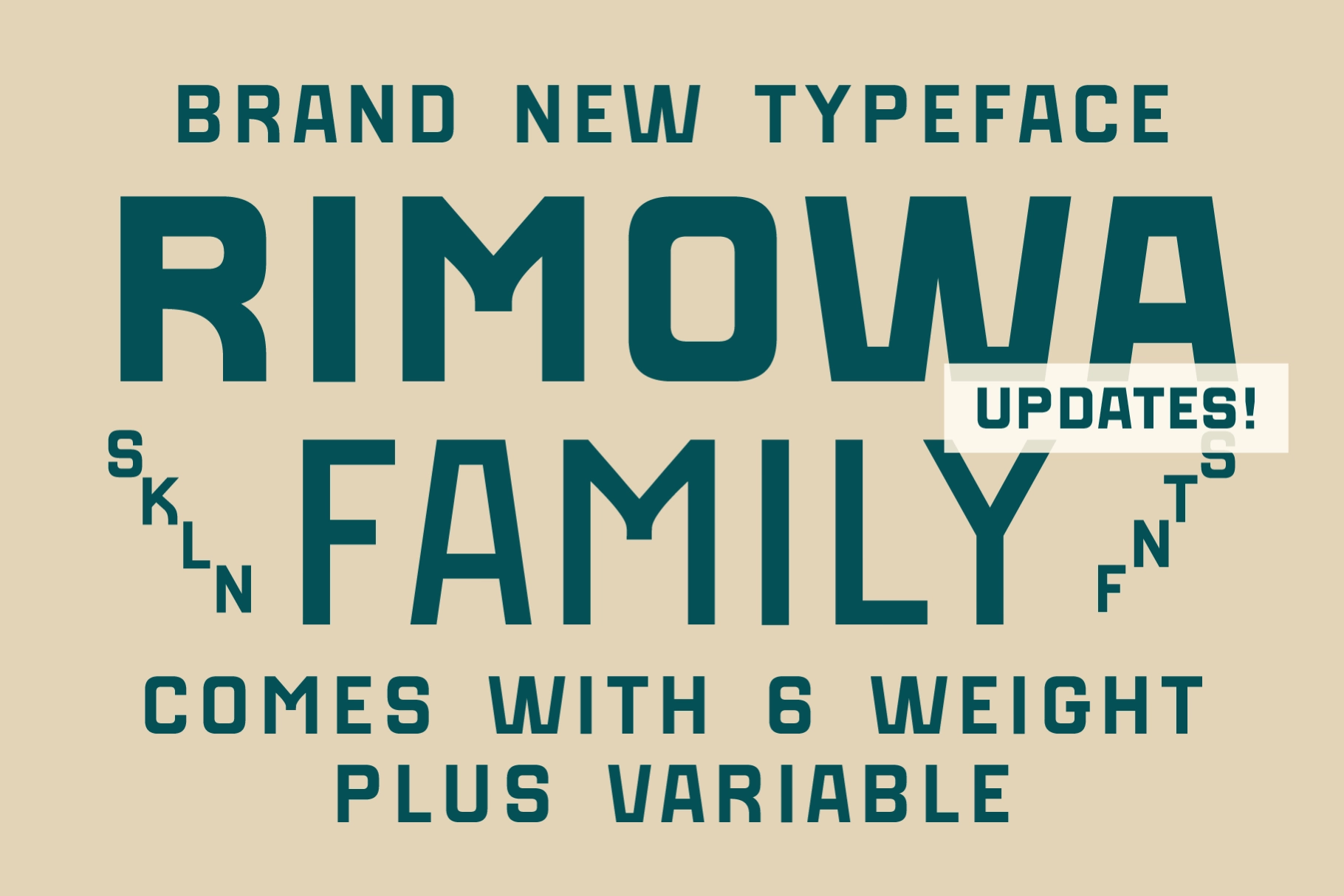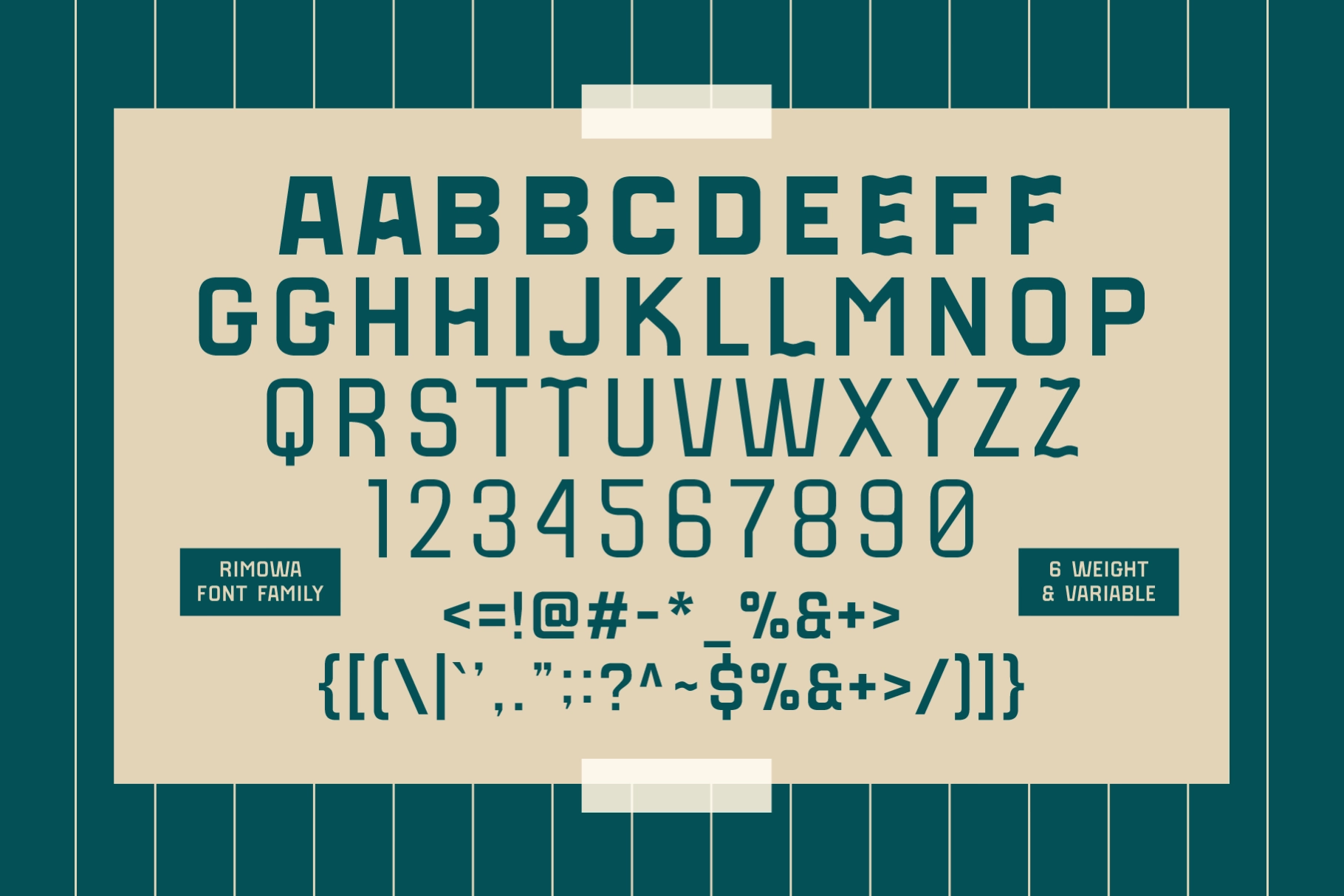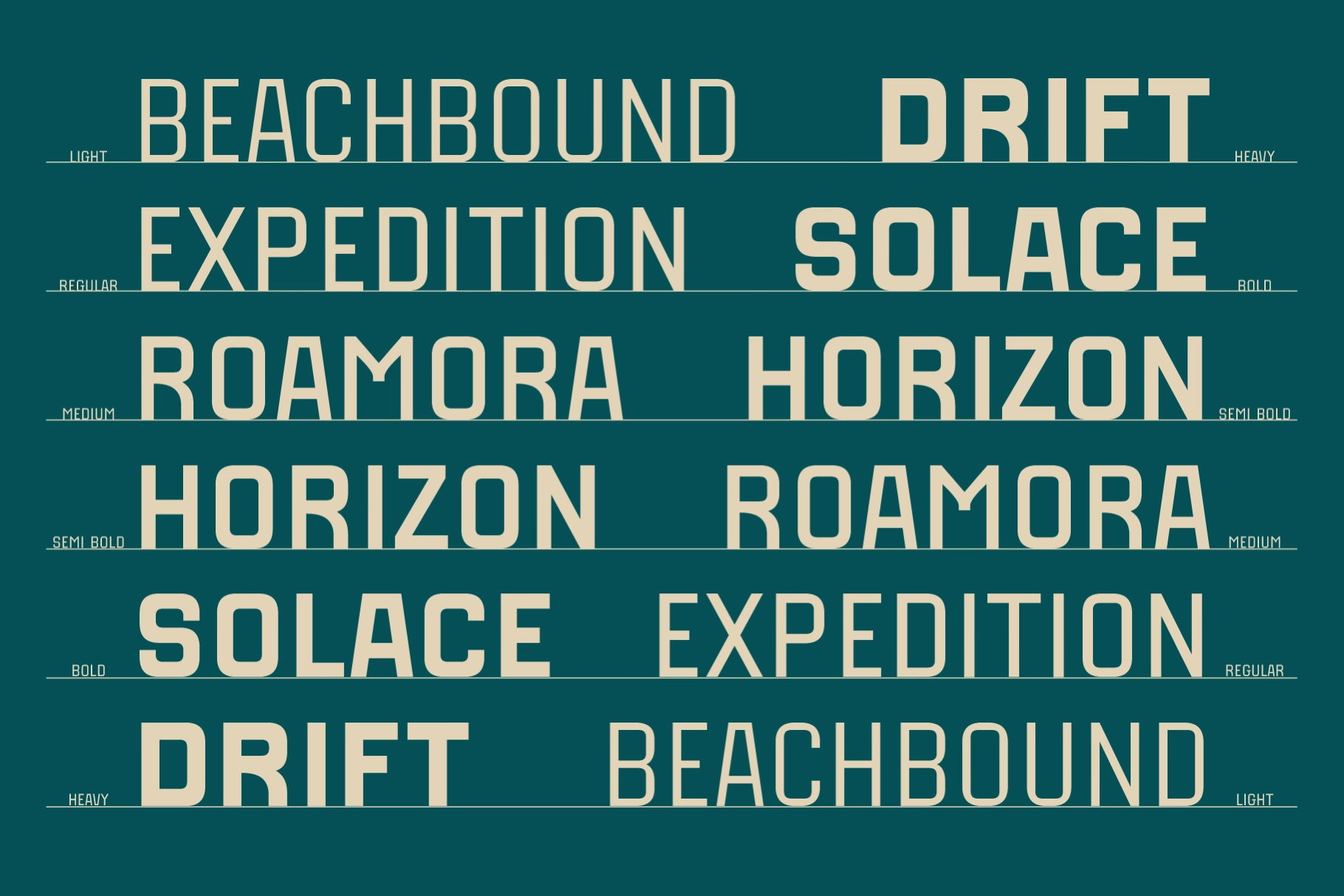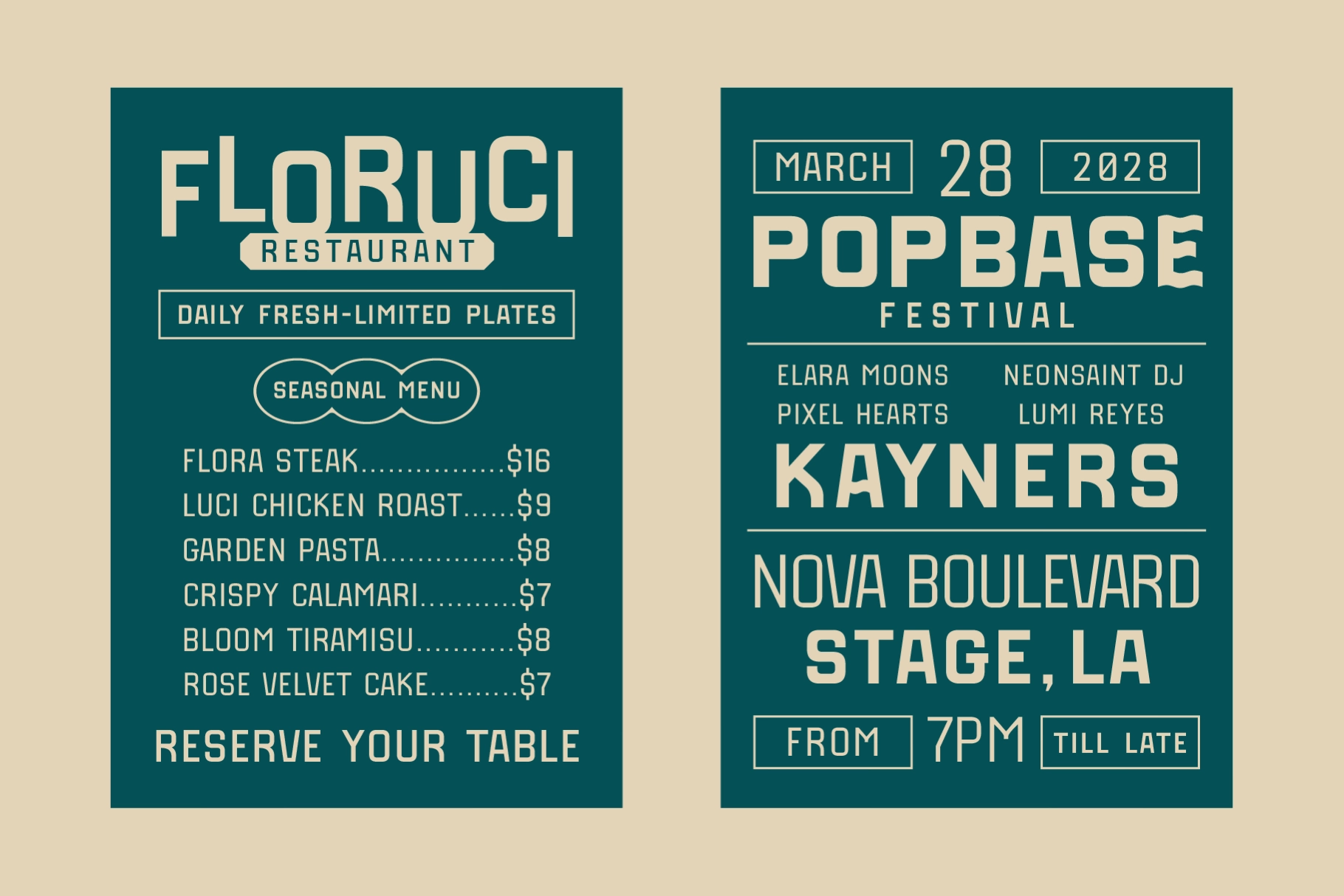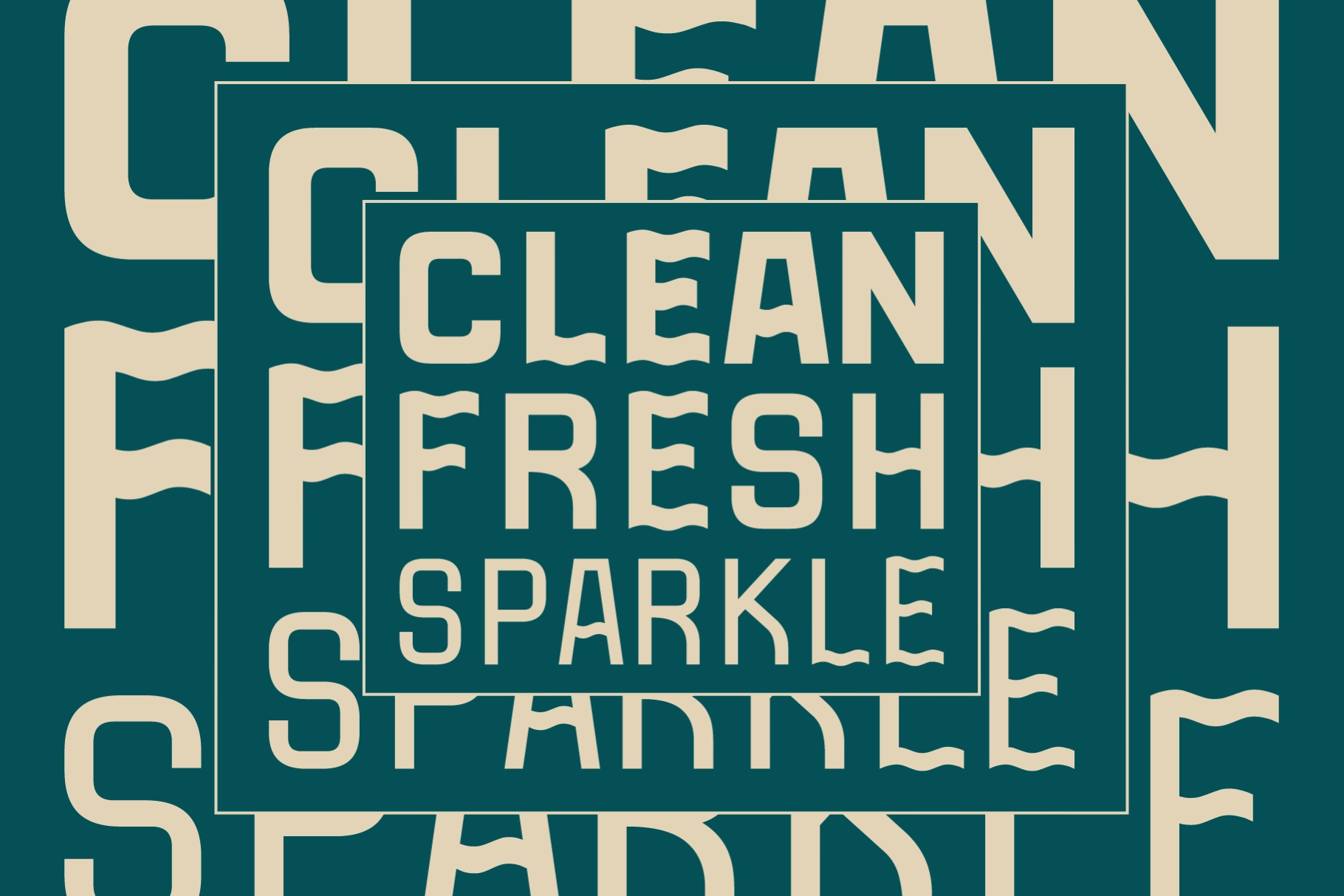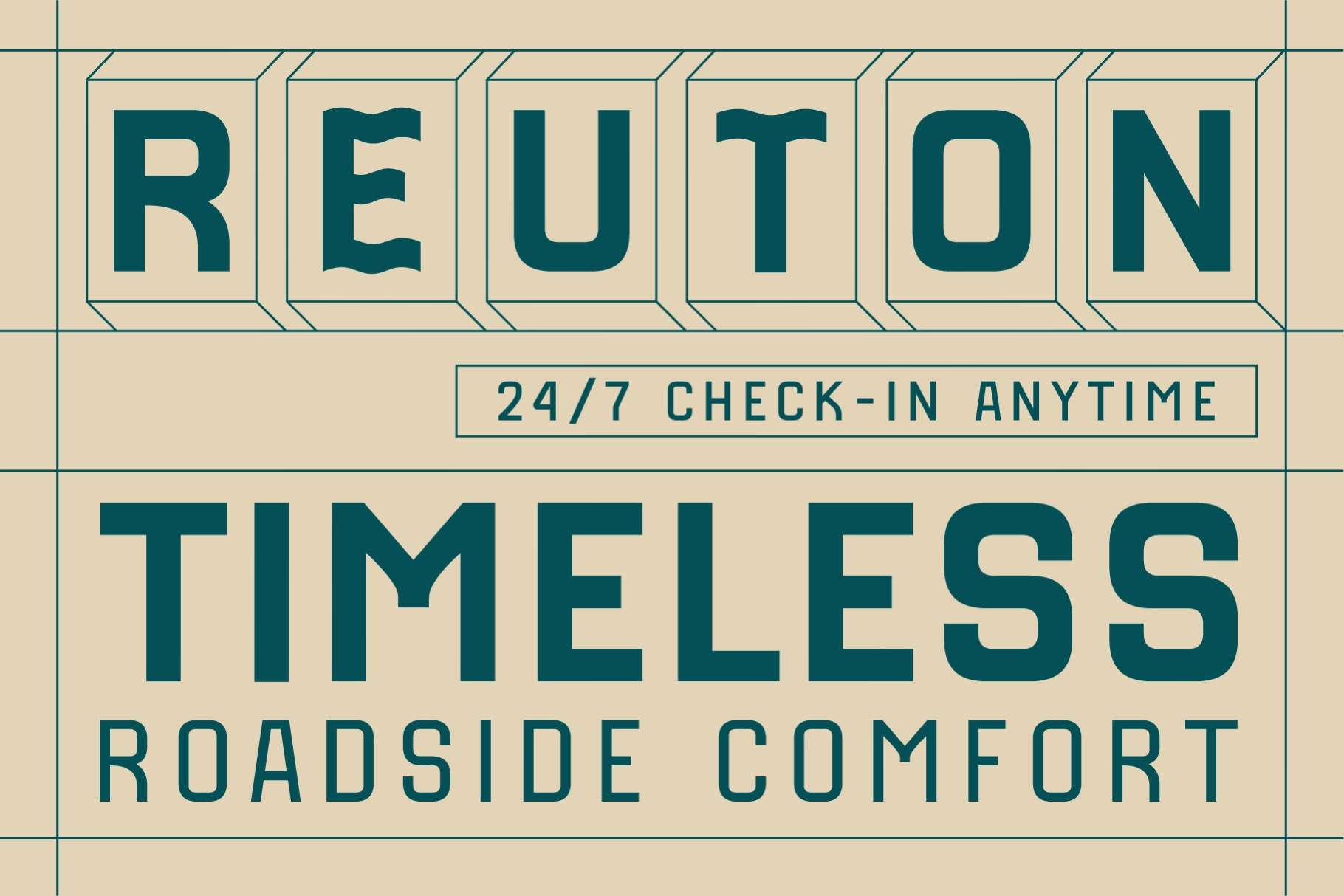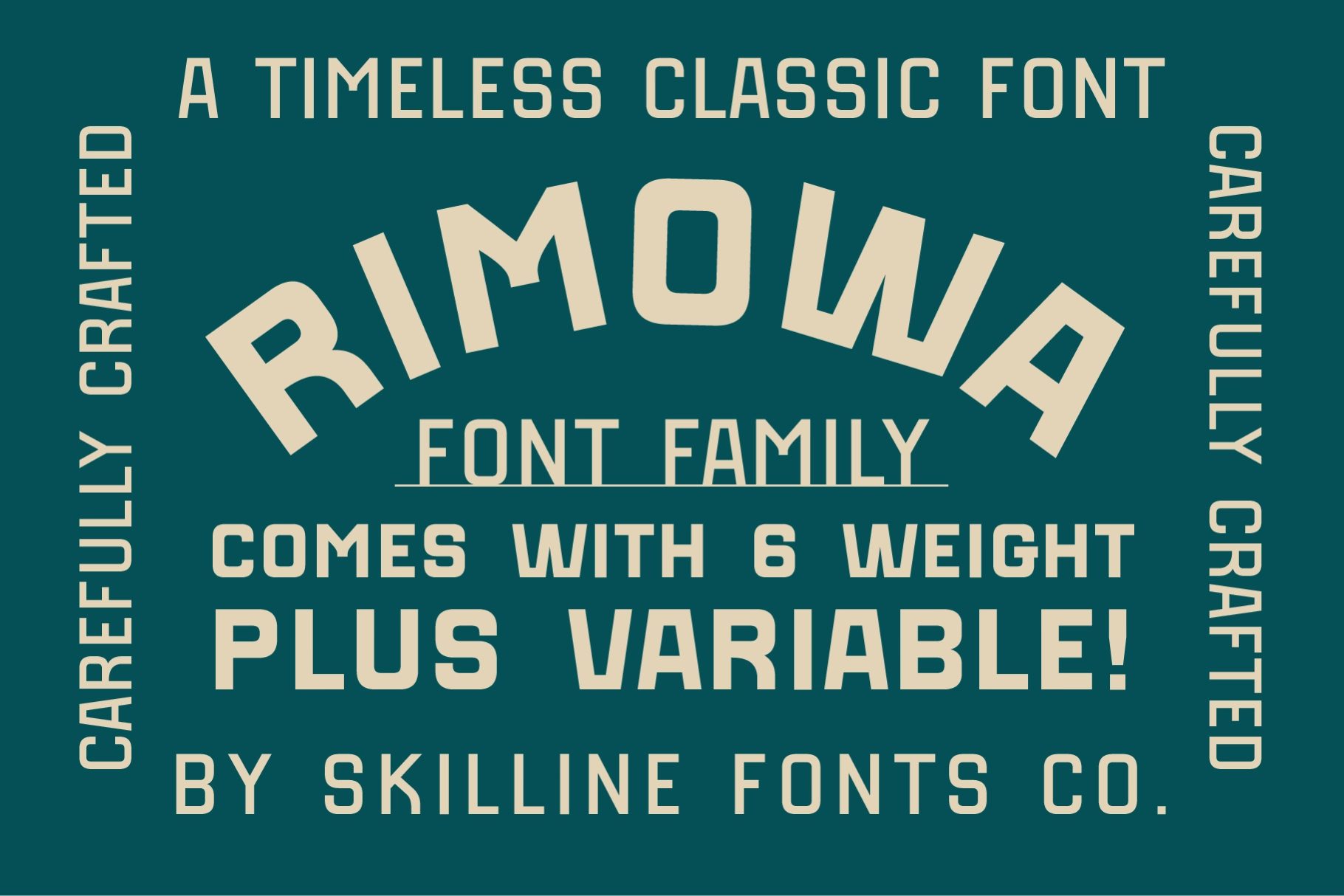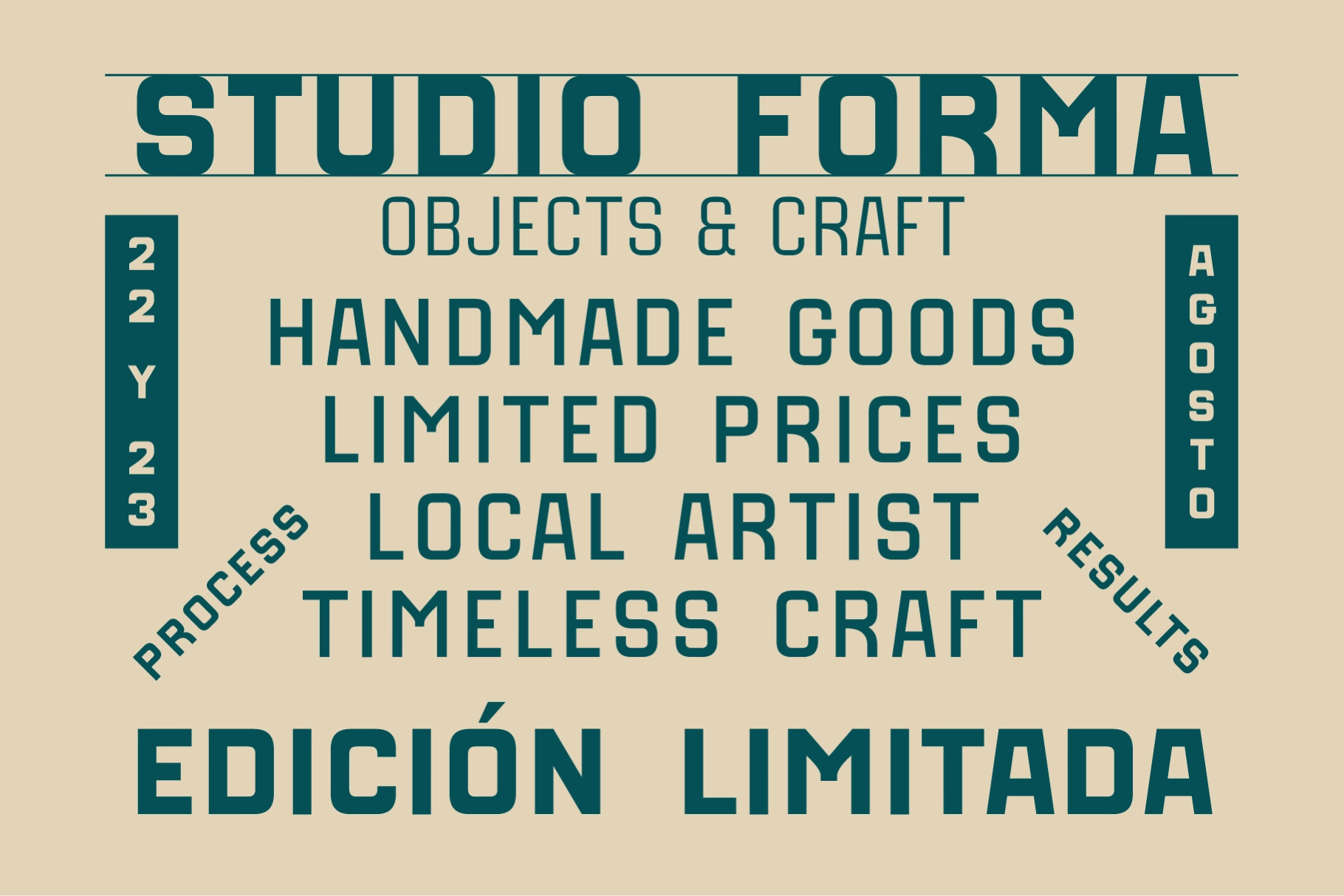
SFC Rimowa - Geometric Sans Font Family
This geometric sans serif is all clean muscle: squared curves, tight spacing, and precise cuts that make every line read with authority. The all-caps structure gives it a technical, utilitarian character, while the six weights and variable format make it practical for sharp hierarchy across branding, signage, and editorial layouts.
Rimowa is a strong pick for sports identities, activewear graphics, transport branding, industrial labels, aviation projects, tech packaging, wayfinding systems, merchandise, poster titles, magazine covers, product launches, and studio marks. It has the crisp discipline of airport signage with fewer delays, which is always a design advantage.
- 6 styles
- Variable format
- All caps typeface
- Basic numerals & punctuation